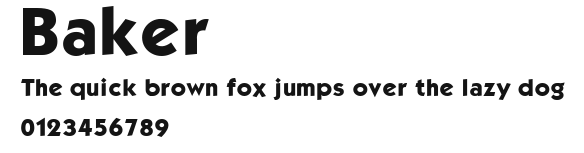
• Font Name: Baker
• Font Style: Book
• Font ID: FontMonger:Kabel Book
• Full Font Name: Baker Book
• PostScript Name: KabelBook
• Character Count: 95
About Baker.ttf
Baker.ttf is a modern, elegant sans-serif font designed for ultimate readability and visual harmony. Perfect for branding, headlines, web design, and print materials.